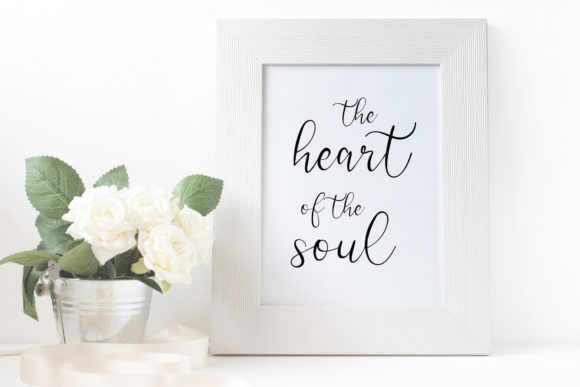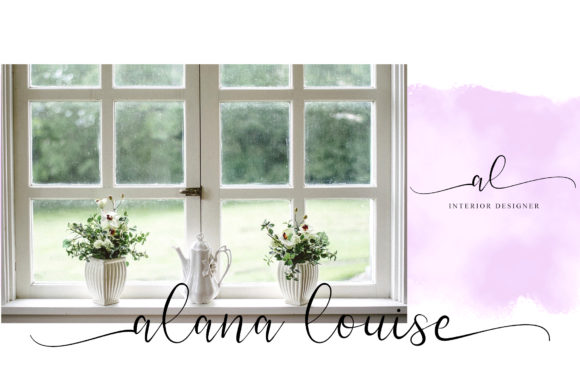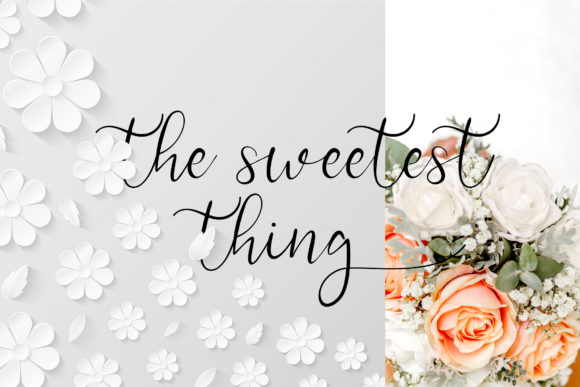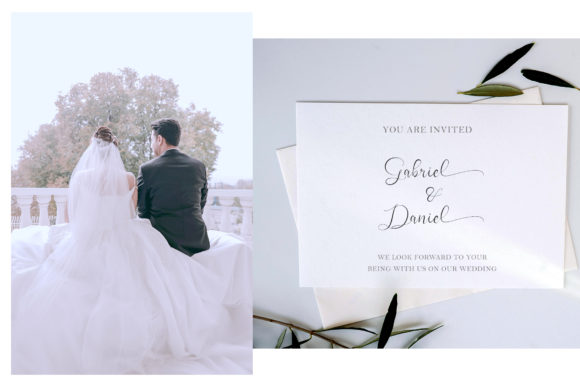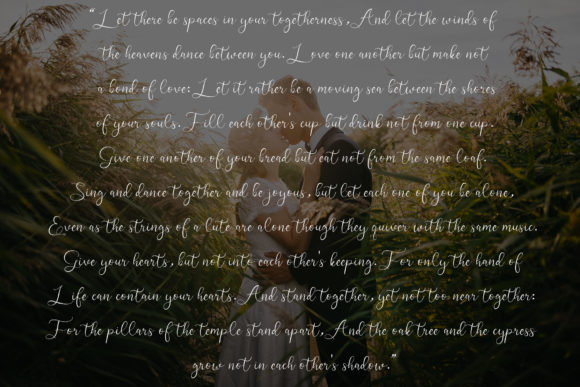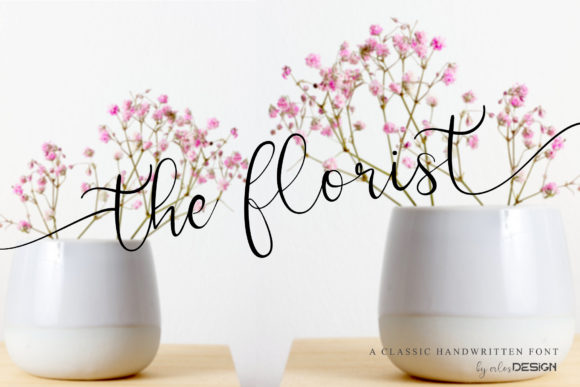
Introducing Ghadys Font: A Timeless Calligraphy Classic
Are you a designer or crafter looking for a font that exudes elegance and sophistication? Look no further than Ghadys Font, a beautiful classic calligraphy typeface that is sure to elevate your creative projects. With its smooth lines, clean dancing baseline, and classic touch, Ghadys Font is the perfect choice for a wide range of applications.
What Makes Ghadys Font So Special?
Ghadys Font is a versatile and stylish typeface that boasts a unique blend of classic and modern elements. Its smooth lines and clean baseline give it a sophisticated and elegant look, making it ideal for use in headings, signatures, logos, and more. Whether you’re creating a wedding invitation, designing a t-shirt, or crafting a logo, Ghadys Font is the perfect choice.
Endless Possibilities with Ghadys Font
One of the best things about Ghadys Font is its incredible versatility. This font can be used for a wide range of purposes, including:
- Headings: Add a touch of elegance to your headings and titles with Ghadys Font.
- Signatures: Create beautiful, one-of-a-kind signatures that make a lasting impression.
- Logos: Use Ghadys Font to create stunning logos that exude sophistication and style.
- Wedding Invitations: Make your wedding invitations truly special with Ghadys Font.
- T-Shirts: Design eye-catching t-shirts that showcase your creativity and style.
- Letterheads: Elevate your business correspondence with Ghadys Font.
- Signage: Create eye-catching signage that grabs attention and makes a lasting impression.
- Labels: Use Ghadys Font to create beautiful labels that add a touch of elegance to any product.
- News: Add a touch of sophistication to your news articles and publications.
- Posters: Create stunning posters that showcase your creativity and style.
- Badges: Design beautiful badges that make a lasting impression.
Ghadys Font is PUA (Private Use Area) encoded, which means that you can access all of the glyphs and swashes with ease. This makes it easy to customize your text and add unique touches to your designs. With Ghadys Font, you have complete control over the look and feel of your text, allowing you to create truly one-of-a-kind designs.
Why Choose Ghadys Font?
So why choose Ghadys Font over other typefaces? Here are just a few reasons:
- Elegance: Ghadys Font exudes elegance and sophistication, making it perfect for high-end designs.
- Versatility: Ghadys Font can be used for a wide range of purposes, from headings and signatures to logos and wedding invitations.
- Easy to Use: Ghadys Font is PUA encoded, making it easy to access all of the glyphs and swashes.
- Unique: Ghadys Font is a unique and distinctive typeface that will set your designs apart from the crowd.
In conclusion, Ghadys Font is a timeless calligraphy classic that is sure to elevate your creative projects. With its smooth lines, clean dancing baseline, and classic touch, Ghadys Font is the perfect choice for designers and crafters looking for a sophisticated and elegant typeface. Whether you’re creating headings, signatures, logos, or more, Ghadys Font is the perfect choice. So why wait? Download Ghadys Font today and start creating stunning designs that showcase your creativity and style!